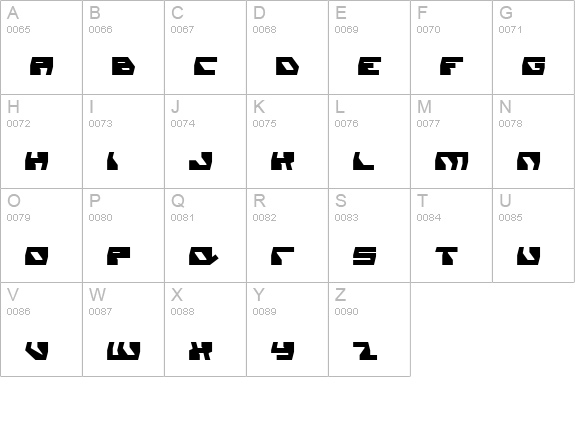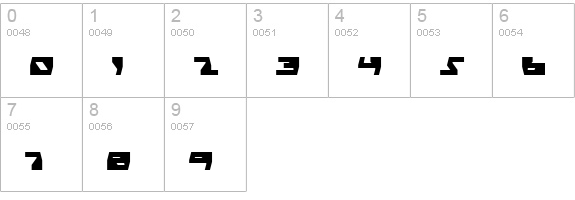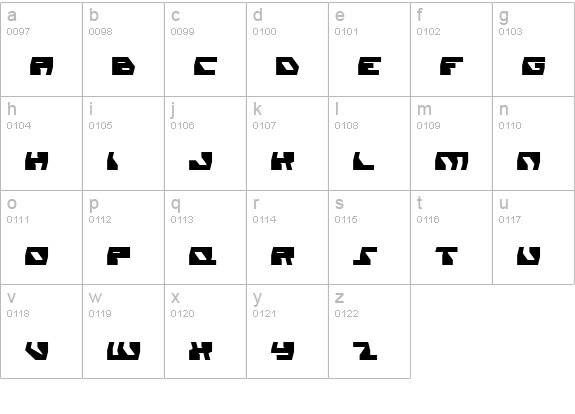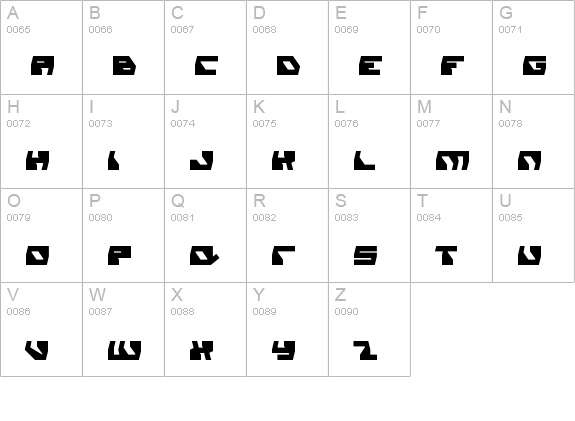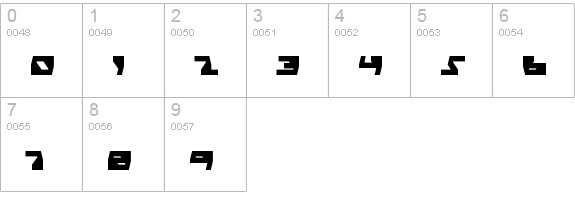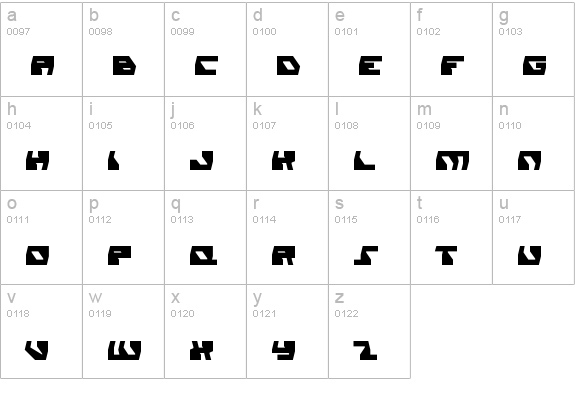
Daedalus Condensed Font Details
Daedalus Condensed is a distinctive, condensed-width variant in the Daedalus typeface family \xE2\x80\x94 well suited to design and typography projects.
Daedalus Condensed font is a modern and stylish typeface that exudes elegance and sophistication. Its sleek and streamlined design makes it perfect for a wide range of design projects, from branding to editorial design. The condensed style of the font allows for more text to be displayed in a limited space without compromising readability. What sets Daedalus Condensed font apart is its versatility and timeless appeal. Whether used in print or digital media, this font is sure to make a statement and capture the attention of your audience. Its clean lines and sharp angles give it a contemporary edge while still maintaining a sense of classic elegance. Best of all, Daedalus Condensed font is available for free download at FontsMarket.com. This means you can start using this stunning typeface in your projects right away, without having to worry about any additional costs. Don't miss out on the opportunity to enhance your designs with the beauty and sophistication of Daedalus Condensed font.